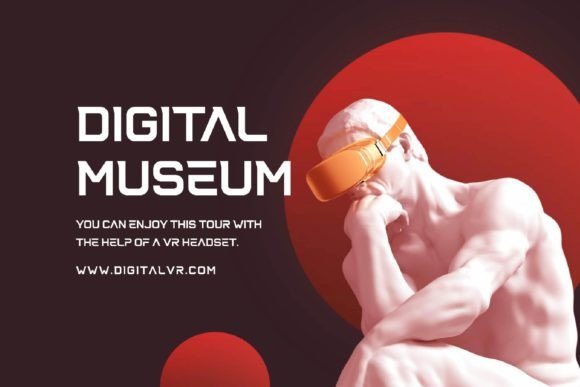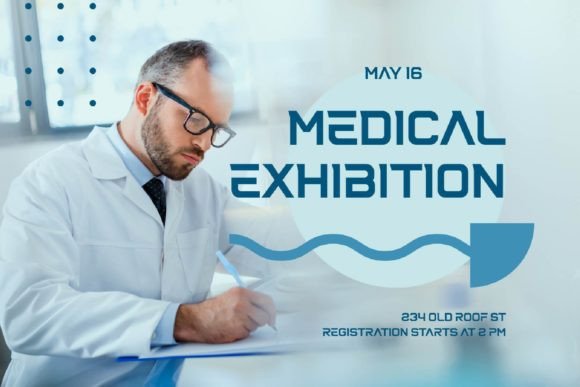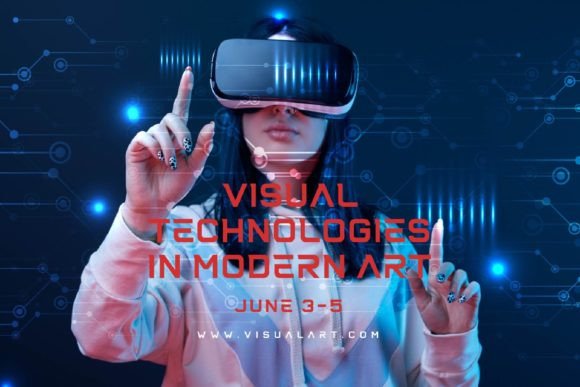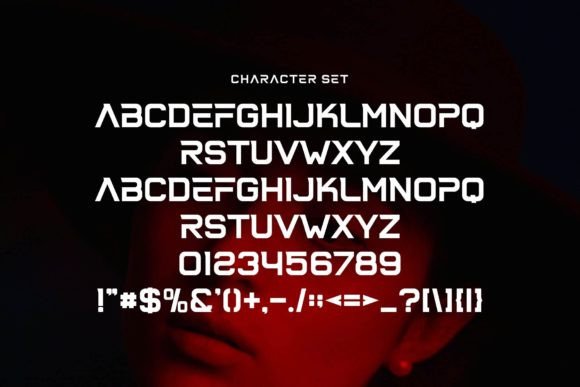
Have you ever stared at a blank page, waiting for inspiration to strike? That’s exactly what happened to me when I was tasked with designing a brochure for a new beauty brand. I wanted something clean, modern, and elegant, but nothing seemed to fit the bill – until I stumbled upon the Betha Font.
Betha is a sans serif font designed specifically for designers who crave simplicity and sophistication. Its minimalist aesthetic makes it perfect for a wide range of applications, from crafting beautiful templates and brochures to creating stunning logos and invitations.
What sets Betha Font apart is its versatility and ease of use. Whether you’re a seasoned pro or a design newbie, this font is a valuable addition to your toolkit, helping you to create stunning designs that stand out from the crowd.
Betha Font Key Features
- Font Style: Betha Font is a unique, sans-serif font designed to convey a sense of modernity and minimalism.
- Unique Characteristics: Betha Font features a distinctive, geometric shape with clean lines and a subtle flair at the terminals.
Betha Font Review
Overall, I’d say the Betha Font is a decent choice for designers looking for a modern and elegant font. Here are the things that work well: ✨
- Unique aesthetic: The Betha Font has a distinct look that sets it apart from more generic fonts.
- Legibility: It’s easy to read, even at smaller sizes, making it suitable for body text.
- Customization options: The font comes in a range of weights and styles, giving designers flexibility when it comes to choosing the right look for their project.
- Limited language support: The Betha Font may not support all languages, which could be a problem for projects that require multilingual text.
- Lack of bold weights: While the font has a range of light and regular weights, the bold weights are somewhat lacking, which could limit its use in certain contexts.
Overall, I think the Betha Font is a solid choice for designers who want a unique and elegant font. While it may not be perfect, its strengths outweigh its weaknesses, making it a worthwhile addition to any designer’s toolkit.
To get the most out of Betha Font, use it for:
1. Creative projects that require a unique and eye-catching font.
2. Logos and branding materials that need a distinctive look.
3. Infographics and presentations that require a clear and readable font.
Alternatives to Betha Font for Designers
Playfair Display is an elegant, high-end serif font ideal for luxury brands, invitations, and formal documents. It features intricate details and ornate flourishes, making it perfect for designers who want to add sophistication to their designs. In comparison to Betha Font, Playfair Display is more luxurious and formal, while Betha Font is more modern and clean.
Montserrat is a modern sans-serif font designed for urban environments. It features clean lines, geometric shapes, and a highly legible design. Montserrat is suitable for designers who want a modern, urban feel in their designs. In comparison to Betha Font, Montserrat is more geometric and urban, while Betha Font is more rounded and friendly.
Merriweather is a classic serif font designed for body text. It features a traditional, elegant design with high readability. Merriweather is suitable for designers who want a timeless, classic look in their designs. In comparison to Betha Font, Merriweather is more traditional and formal, while Betha Font is more modern and playful.
Great Vibes is a script font designed for creative and artistic projects. It features a flowing, handwritten design with a relaxed feel. Great Vibes is suitable for designers who want to add a personal touch to their designs. In comparison to Betha Font, Great Vibes is more creative and artistic, while Betha Font is more modern and clean.